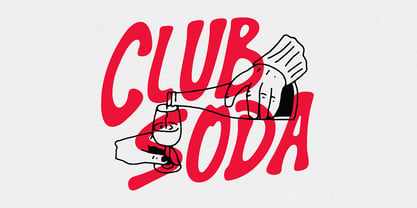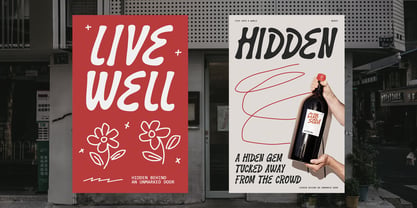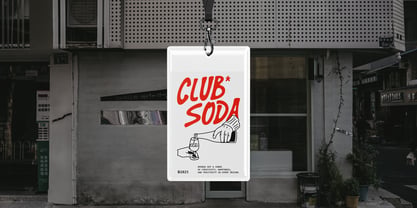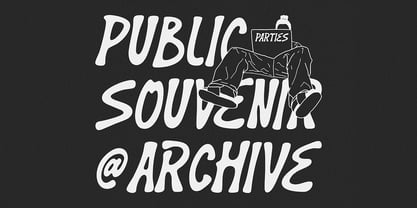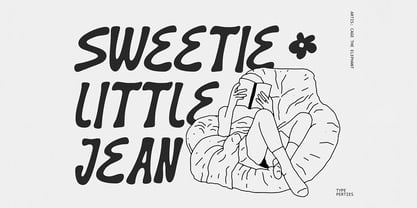
ATPElenore
by Typeparties
The ATPElenore Font Family was designed by Thufail Al ghifary and published by Typeparties. ATPElenore contains 1 styles. More about this family
This typeface radiates a whimsical and cheerful mood, designed with slightly irregular, hand-drawn strokes that give it an authentic, playful touch. Each letterform feels spontaneous yet intentional, with tall proportions and narrow spacing that create a sense of movement and liveliness. The uneven stroke widths and subtle imperfections echo the charm of handwriting, making the font approachable, organic, and full of character. Rather than striving for mechanical precision, its irregularity is what makes it unique—expressing warmth, friendliness, and creativity.